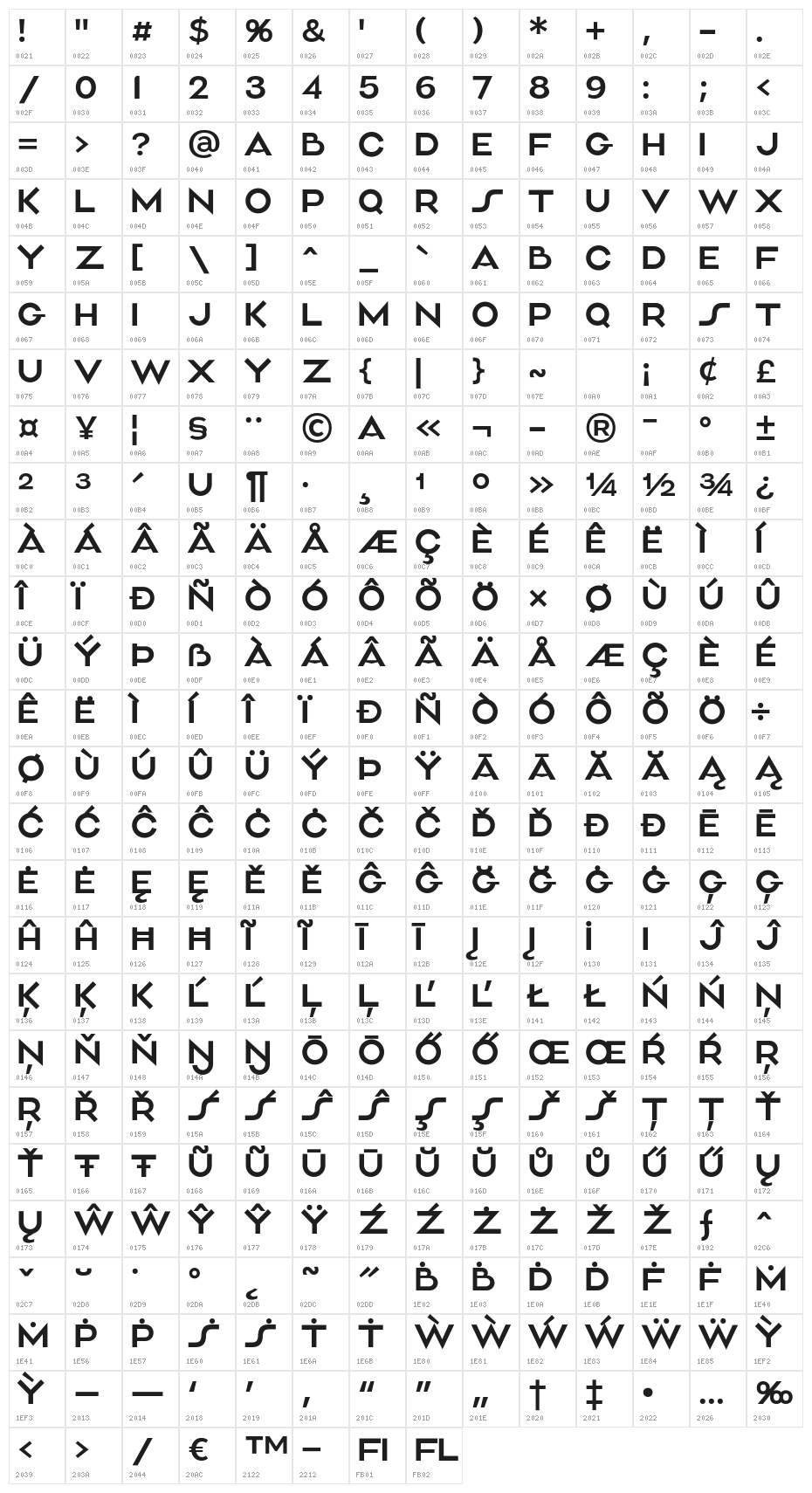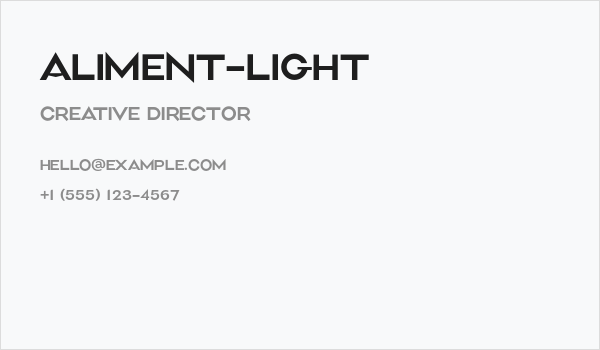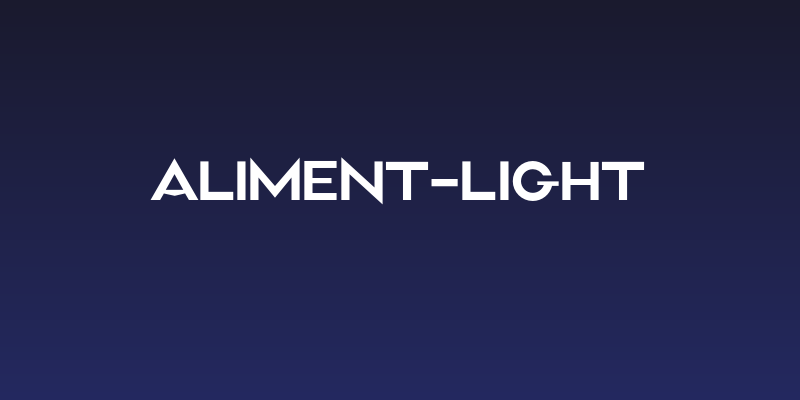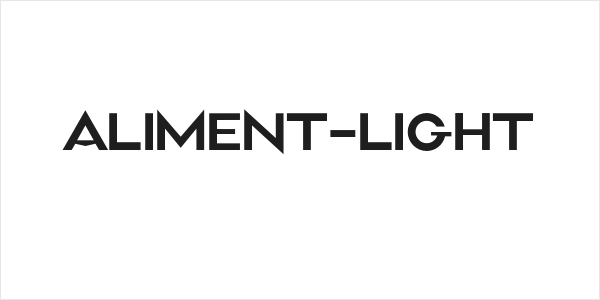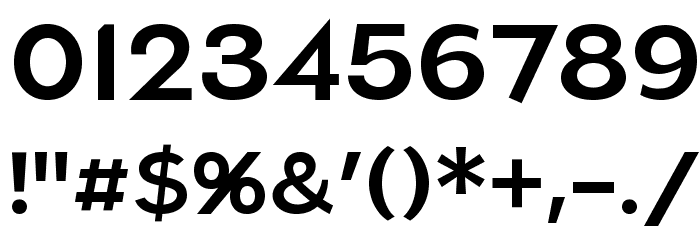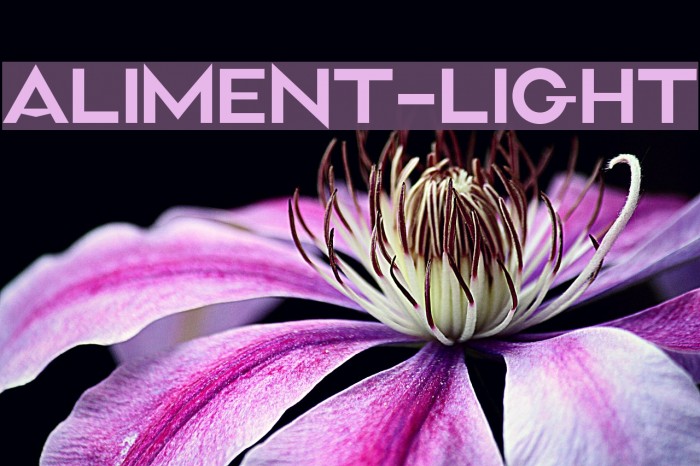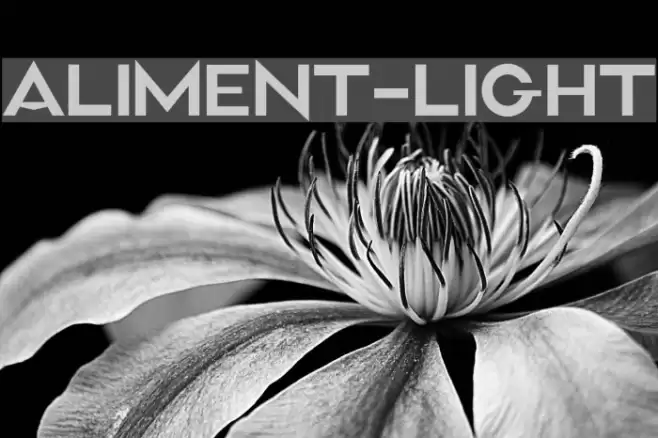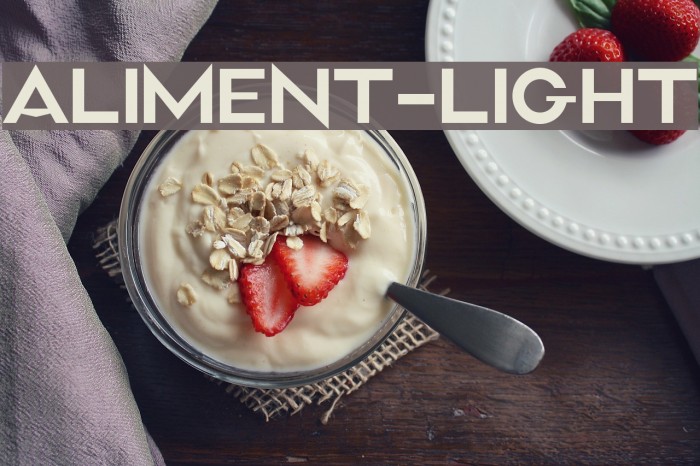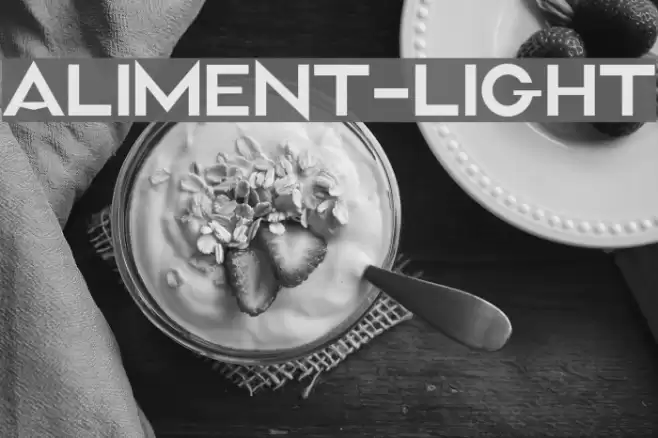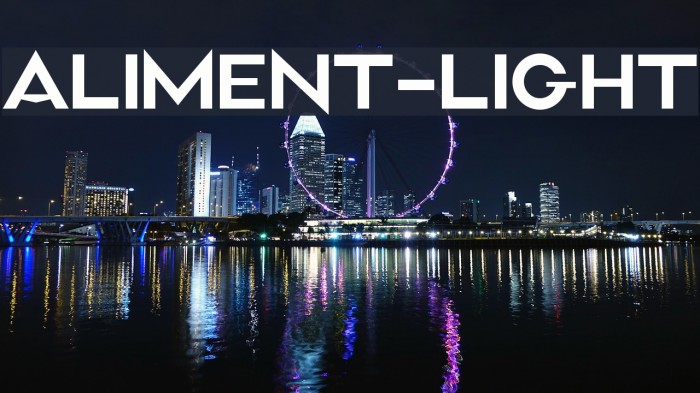
Aliment-Light Font
Aliment-Light Description
This font features a modern and geometric design with clean lines and a distinct, futuristic aesthetic. The characters are bold and uniform, with a consistent stroke width that gives a sense of stability and strength. The uppercase letters have a unique style, particularly noticeable in the 'S' and 'G', which incorporate a sleek, angular cut. The numbers are equally bold and clear, making them highly legible. Special characters maintain the same geometric style, ensuring consistency across all glyphs. This font is ideal for projects that require a contemporary and assertive look.
| Use Case | Headlines, Logos, Branding |
| Proposed Projects | Ideal for branding, advertising, and digital media projects that require a modern and bold typeface. |